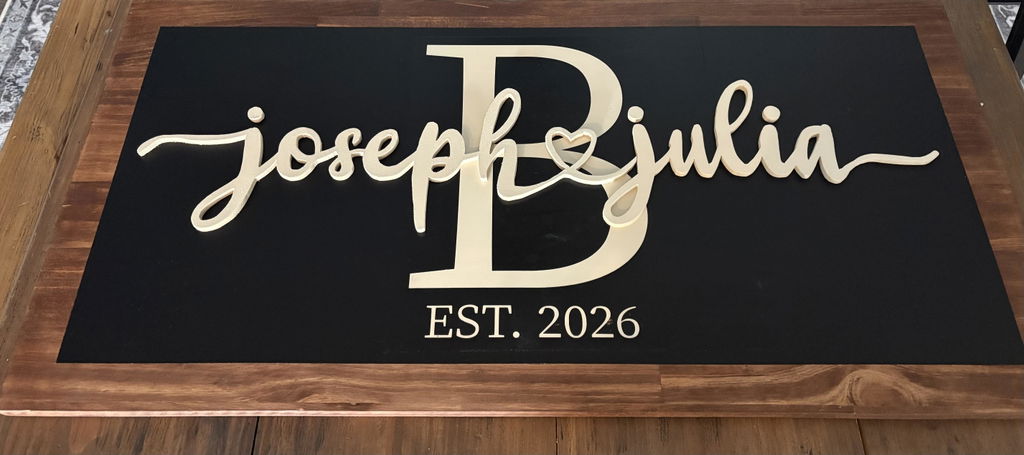
Yellow Bunny - Heart Font
Yellow Bunny Heart Font is a romantic and sweet calligraphy typeface with characters that dance along the baseline. It will add a luxury spark to any design project that you wish to create!
Yellow Bunny Heart Font is PUA encoded which means you can access all of the amazing glyphs and ligatures with ease!
Scroll Saw Wedding Sign
Perfect for wedding gift sign! My first scroll saw lettering attempt!